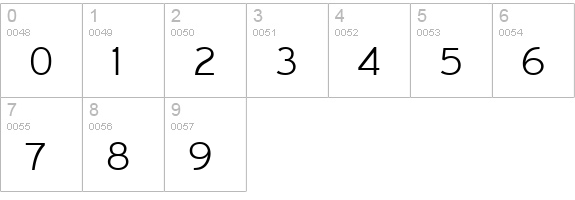
Expressway Lt Font Details
Expressway Lt is a modern and sleek sans-serif font that exudes professionalism and sophistication. Its clean lines and geometric shapes make it perfect for a wide range of design projects, from branding to web design. The light weight of the font gives it a delicate and airy appearance, adding a touch of elegance to any text. One of the best features of Expressway Lt is that it is completely free to download. You can easily access this versatile font at FontsMarket.com, where you can take advantage of its high quality and versatility without any cost. Whether you are a designer looking for a sleek and modern typeface or a business owner in need of a professional font for your marketing materials, Expressway Lt is the perfect choice. Download it today and elevate your designs with this stylish and free font.